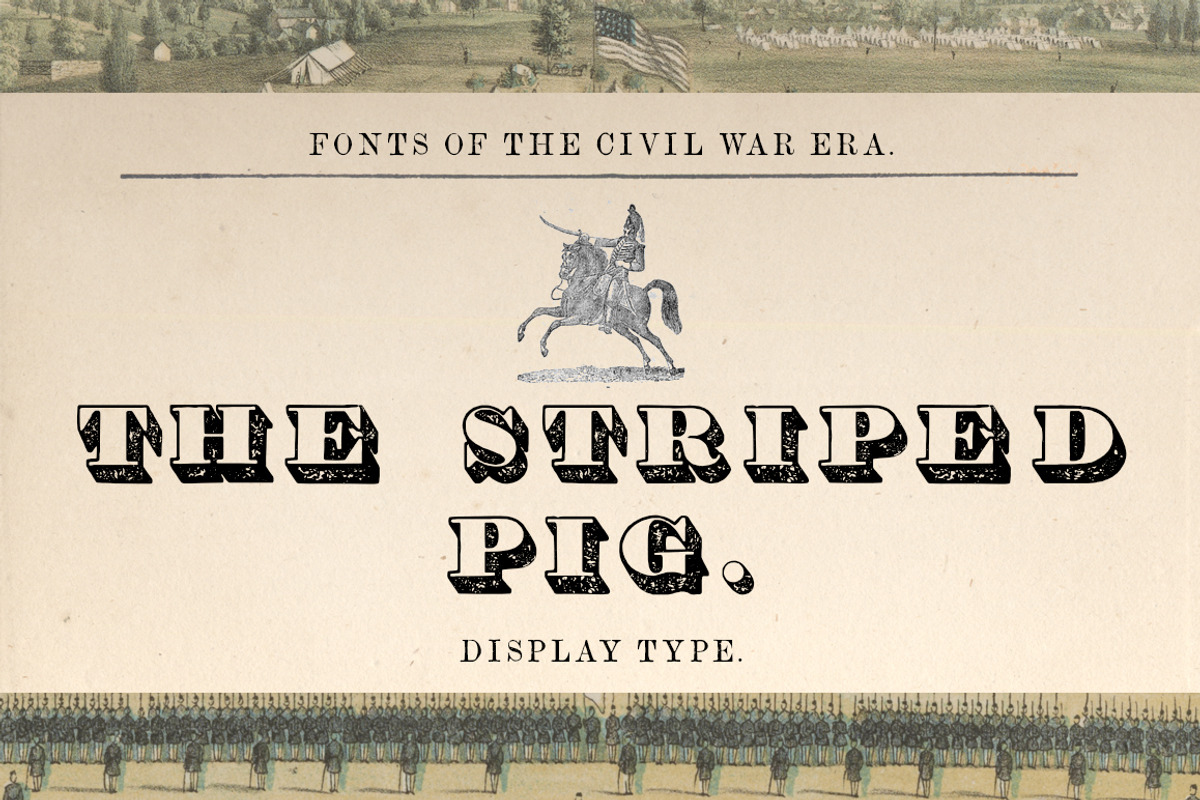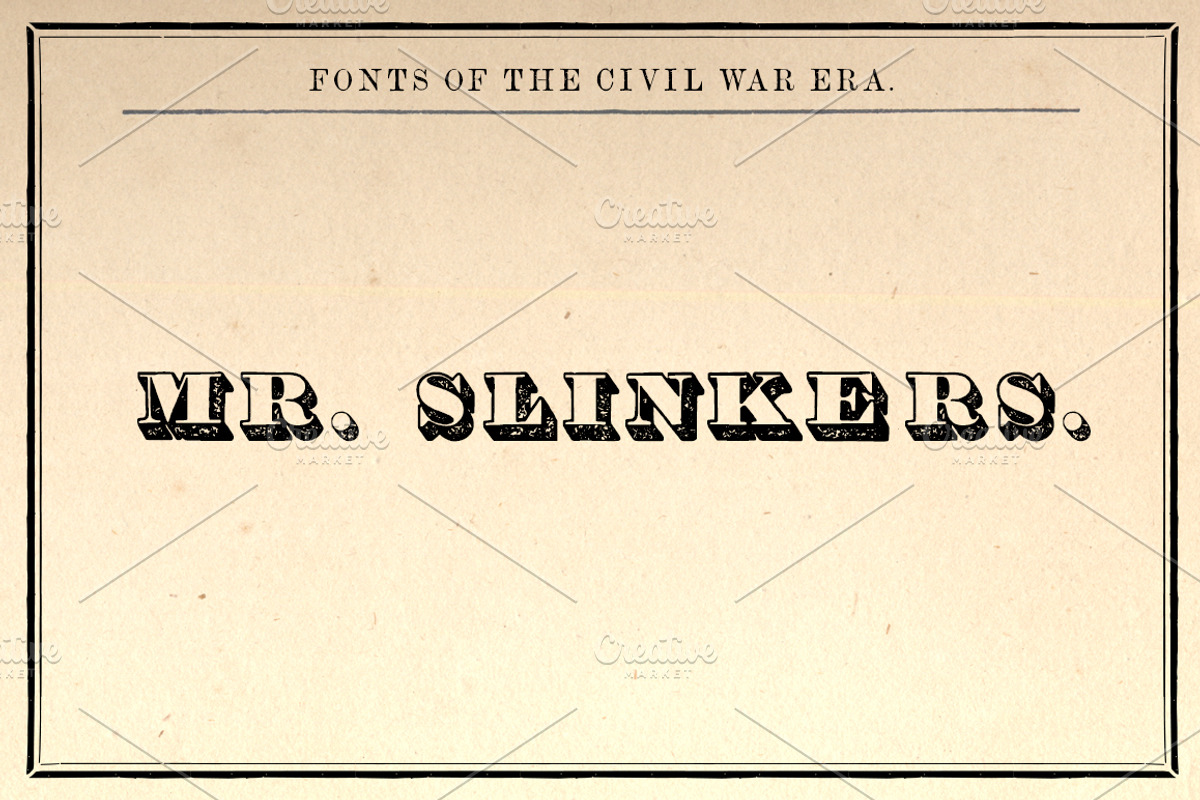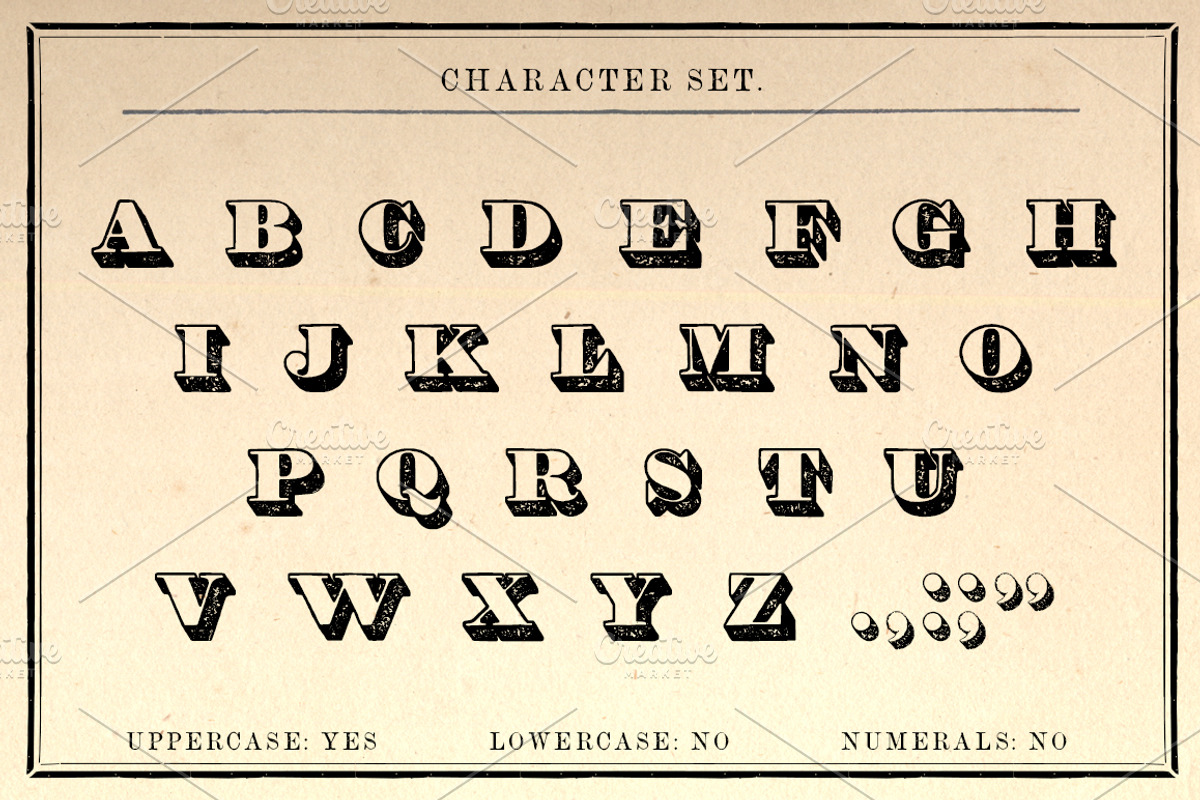
The Striped Pig Display Font
The Striped Pig Regular OTF is a shadowed serifed display font that comes from Volume 1 of The New Blazing Star Press's "Printer's Type Case."
This font is ideal for museums, historical reenactors and living historians, graphic designers, and all lovers of historical typography. Create stunning book covers, band logos and album art, and other high-impact branding projects. Also perfect for game design, packaging design, magazine imagery, wedding invitations, and much more.
- Unique Letterforms
The lowercase features a slight variant of the uppercase alphabet.
This font DOES NOT include LOWERCASE or NUMBERS, as they did not exist in the original font. Only basic punctuation is included.
It was very common for 19th century typesetters to use other fonts to substitute punctuation and numerals missing from a particular typeface.
Since they were scanned directly from the pages of original 150 year-old documents, the letters show imperfections common to letterpress printing.
WHAT'S BEHIND THE NAME "THE STRIPED PIG"?
In 1838, Massachusetts passed the 15-Gallon Act, which made the sale of alcohol illegal in any quantity under 15 gallons, making it virtually impossible for working class people to buy even a single glass of whiskey. That year at a militia muster in Dedham, a clever wag came to the thirsty man’s rescue by setting up a sideshow exhibit. A tent was erected, and on handing over a fourpenny bit for admission, patrons were treated to the sight of a pig with painted stripes, and, as a thank you, a free glass of rum.
All of our Civil War-era historical fonts were copied entirely from ORIGINAL LETTERS scanned from type specimen, business directories, song sheets, broadsides, and advertisements, printed between 1848 and 1867 gathered from museums, private collections, and the Library of Congress. No cheap work done, but instead with a neatness not to be excelled in the Typographical Art.